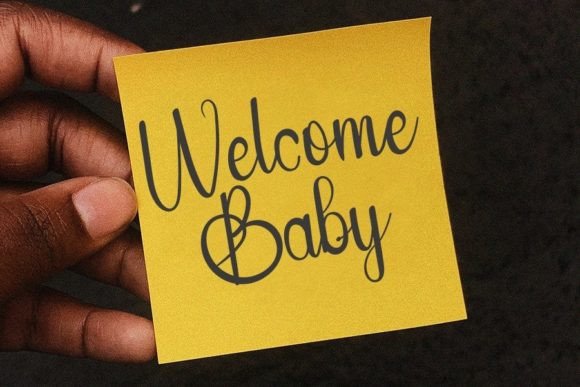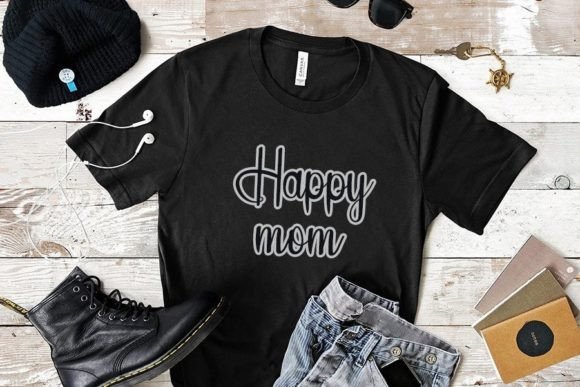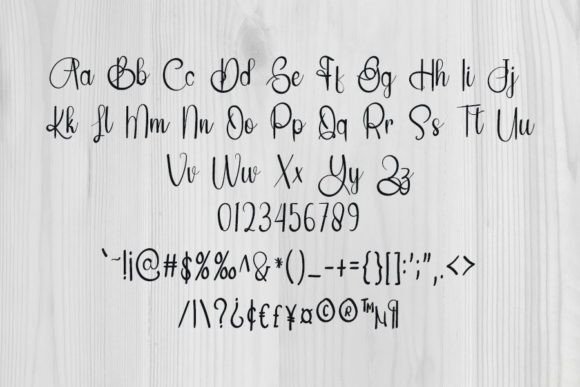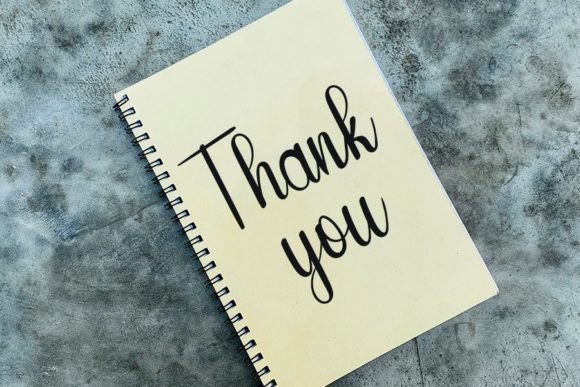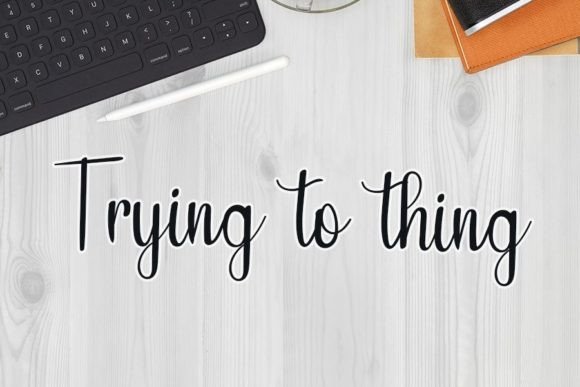
Beach Scenery Font
About Beach Scenery Font
“Beach Scenery” is a beautiful and versatile handwritten font designed to bring a unique feel and a stunning impact to your creative projects. With its distinct style, this font adds a lovely spark, making it a valuable asset for a variety of design applications.
The versatility of “Beach Scenery” allows it to adapt seamlessly to different creative projects. Whether you’re working on branding materials, invitations, social media posts, or any other design, this font is crafted to add a touch of beauty and uniqueness.
Imagine using “Beach Scenery” on a poster, where its stunning impact enhances the visual appeal and captures the essence of a beach scene. Picture it on a travel brochure, adding a lovely spark to the description of tropical destinations. The font’s versatility makes it suitable for a wide range of creative ideas, particularly those associated with scenic and relaxing themes.
As you incorporate “Beach Scenery” into your design projects, let its beautiful and versatile handwritten style be the key element that elevates your work. Whether you’re creating logos, branding materials, or any other design, “Beach Scenery” invites you to infuse your projects with its stunning impact, ensuring that your creations stand out with a touch of beauty and uniqueness.